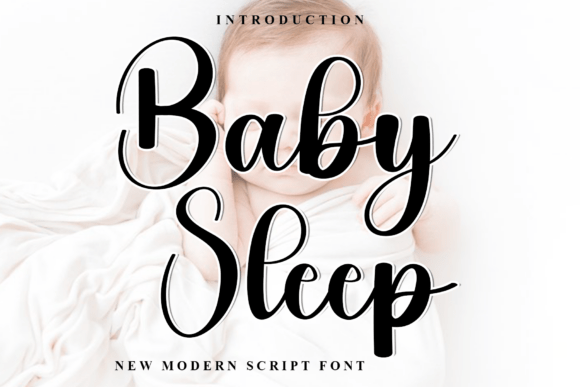
Introducing Baby Sleep Font: Your New Design BFF
Have you ever been working on a design project and, just as you’re about to hit publish, you realize you need a font that captures the essence of your brand? That’s exactly how I felt when I stumbled upon Baby Sleep Font. This charming, hand-drawn font is the perfect solution for designers who want to add a touch of warmth and friendliness to their personal projects, invitations, and social media graphics.
Baby Sleep Font Key Features
- Unique Whimsical Design: The Baby Sleep Font features a hand-drawn design with a soft, soothing aesthetic, perfect for creating a calming atmosphere.
- Character Set: Includes a comprehensive set of uppercase and lowercase letters, numbers, and punctuation marks, making it ideal for creating engaging and informative content.
- Customizable: The font’s unique design allows for easy customization, making it perfect for creating personalized baby-related content, such as nursery decor, baby books, and more.
Baby Sleep Font Review
As a designer, I was excited to dive into the Baby Sleep Font and see if it met my expectations. Here’s my honest review:
- Unique Character**: The font is indeed unique and has a soothing quality that’s perfect for a baby sleep-related theme.
- Clean Design**: The font is clean and easy to read, making it suitable for various applications, such as website headers, social media posts, and print materials.
- Good Legibility**: The font is legible even at smaller sizes, which is a plus for designers who need to use it in tight spaces.
- Limited Expressiveness**: While the font is soothing, it may not convey the full range of emotions that a designer might need to express in a project.
- No Variations**: There aren’t many variations of the font, which can limit its versatility and make it feel less engaging.
Overall, the Baby Sleep Font is a solid choice for designers who need a clean, unique font for a baby sleep-related theme. However, its limitations may make it less suitable for projects that require a wider range of expressiveness.
Practical Application Guide for Baby Sleep Font
Tips for Getting the Most Out of Baby Sleep Font
Use Baby Sleep Font in conjunction with images of babies, nursery decorations, or parenting-related themes to create a cohesive and engaging design.
Experiment with different font sizes and colors to create visual hierarchy and emphasis in your design.
Combine Baby Sleep Font with other fonts to create a unique and playful typography style.
Baby Shower Invitations: Use Baby Sleep Font to create cute and playful invitations for baby showers.
Parenting Blog Posts: Use Baby Sleep Font to add a personal touch to parenting blog posts and articles.
Children’s Book Covers: Use Baby Sleep Font to create eye-catching and engaging book covers for children’s books.
Q: Can I customize the Baby Sleep Font to fit my specific needs?
Yes, the Baby Sleep Font is designed to be highly customizable. You can use font editing software to modify the font’s character set, spacing, and other attributes. Additionally, you can use font embedding techniques to include the font in your digital designs, allowing you to customize the font’s appearance and behavior.